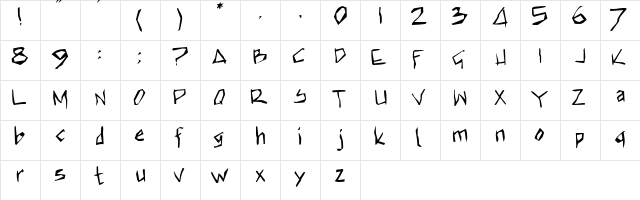
STUPID Regular
Design Context for STUPID Typeface
STUPID is a composed and adaptable typeface that performs quietly and consistently across a wide range of design contexts.
Pro Tip: Pair STUPID with a font of contrasting weight or personality to build a more expressive typographic hierarchy.